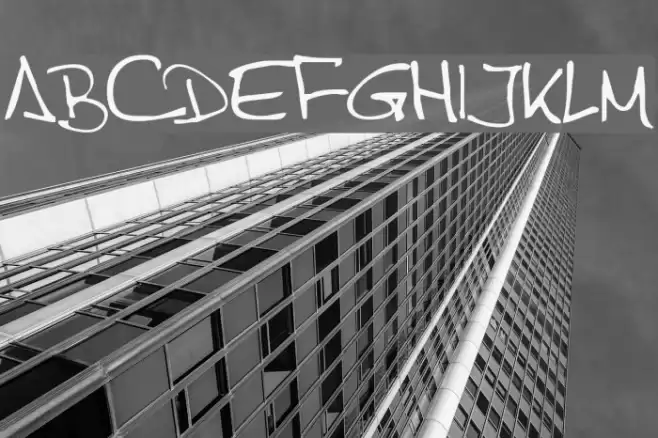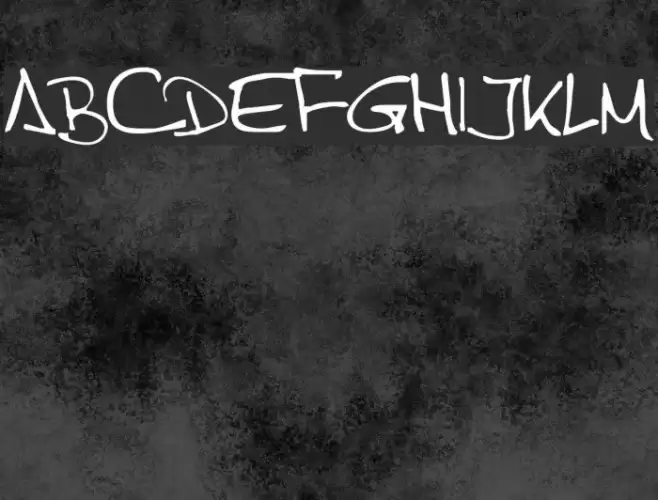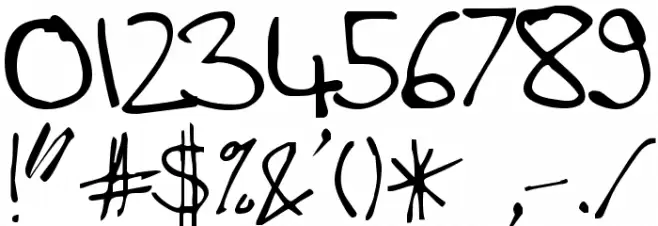
Stevekern Font
Stevekern Description
This font features a dynamic and expressive handwritten style, characterized by its fluid and irregular strokes. The uppercase letters are bold and slightly slanted, giving a sense of movement and energy. The lowercase letters maintain a consistent flow, with some characters extending below the baseline, adding to the casual and informal appearance. The numerals are distinct and easy to read, while the special characters complement the overall playful aesthetic. This font's unique style makes it suitable for projects that require a personal touch or a creative flair.
A dynamic, expressive handwritten font with fluid strokes and a playful aesthetic from Handwritten fonts.